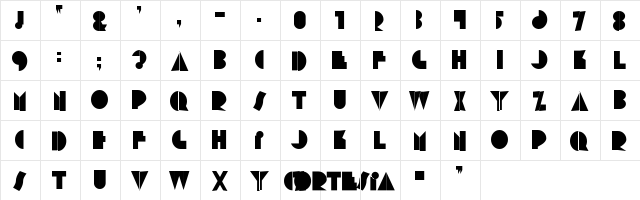
Cortesia Regular
Design Context for Cortesia Typeface
Cortesia is a composed and adaptable typeface that performs quietly and consistently across a wide range of design contexts.